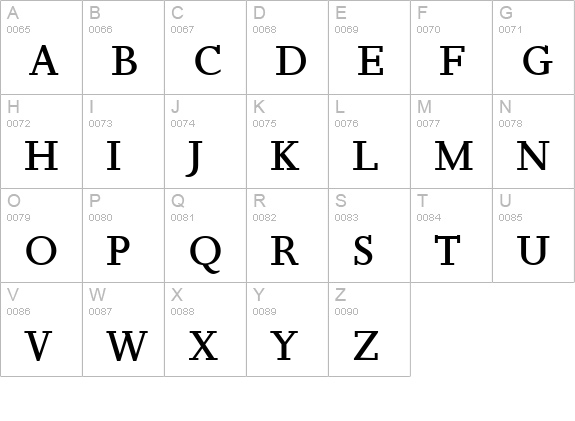
JessicaSerial-Medium-Regular is a balanced, medium-weight variant in the JessicaSerial typeface family \xE2\x80\x94 well suited to sub-headlines, navigation, and balanced editorial work.
JessicaSerial-Medium-Regular font is a versatile and modern typeface that exudes sophistication and elegance. With its clean lines and balanced proportions, this font is perfect for a wide range of design projects, from branding to editorial design. The medium weight of the font strikes the perfect balance between boldness and readability, making it ideal for both headlines and body text. What sets JessicaSerial-Medium-Regular font apart is its timeless appeal and versatility, making it a must-have for designers looking to add a touch of sophistication to their work. Whether you're working on a print project or a digital design, this font will elevate your work to the next level. And the best part? JessicaSerial-Medium-Regular font is available for free download at FontsMarket.com. So go ahead and give your designs a polished and professional look with this stunning font today!